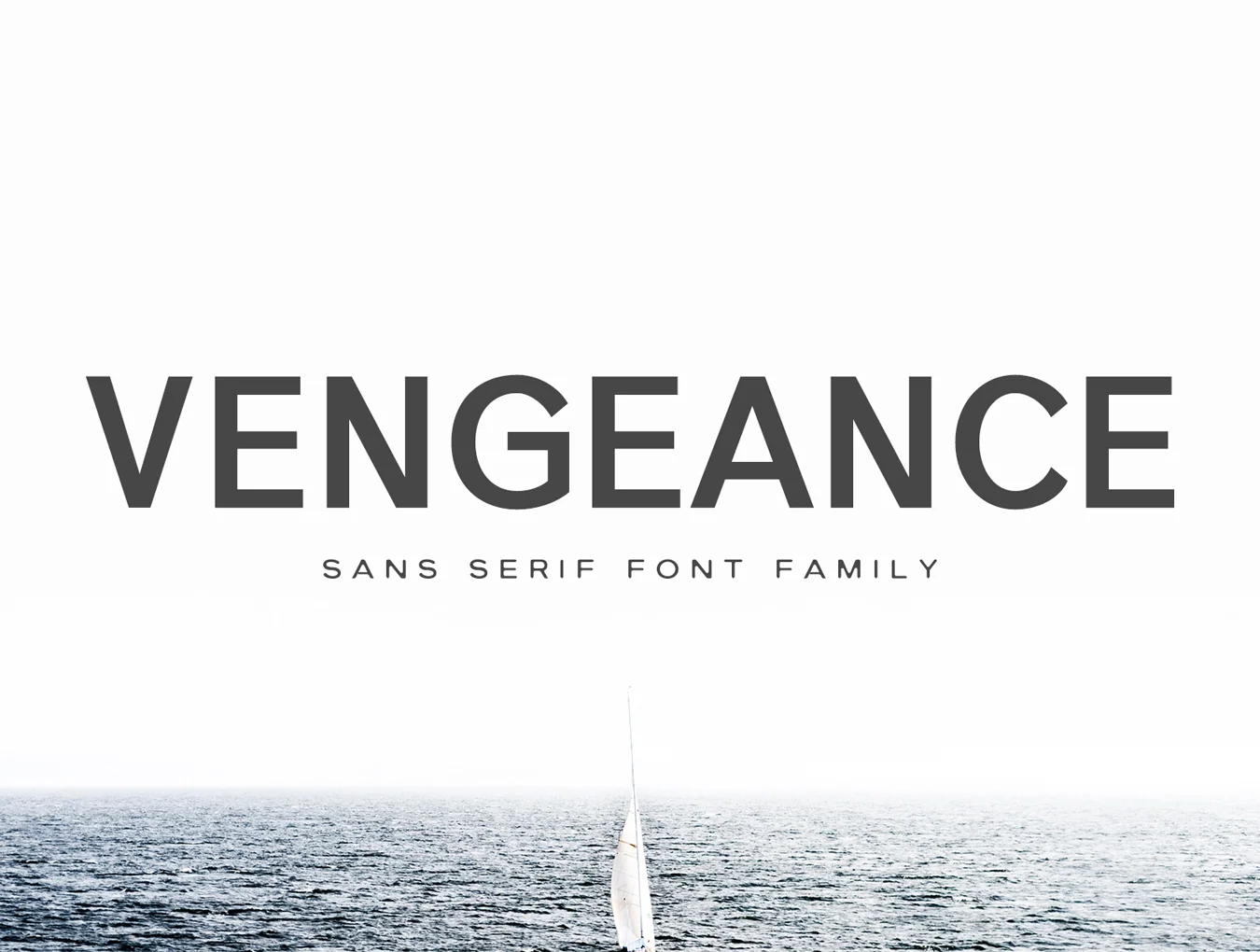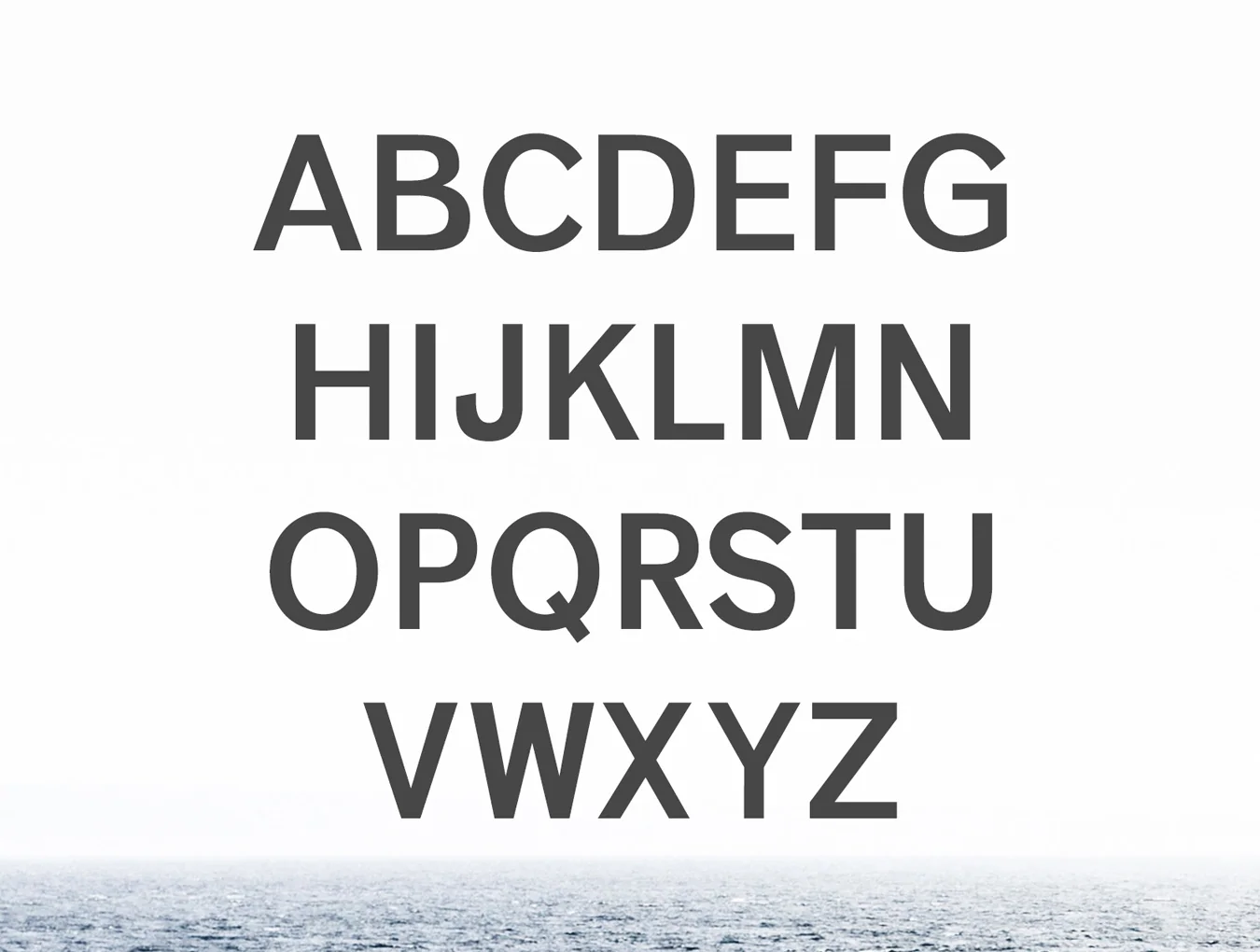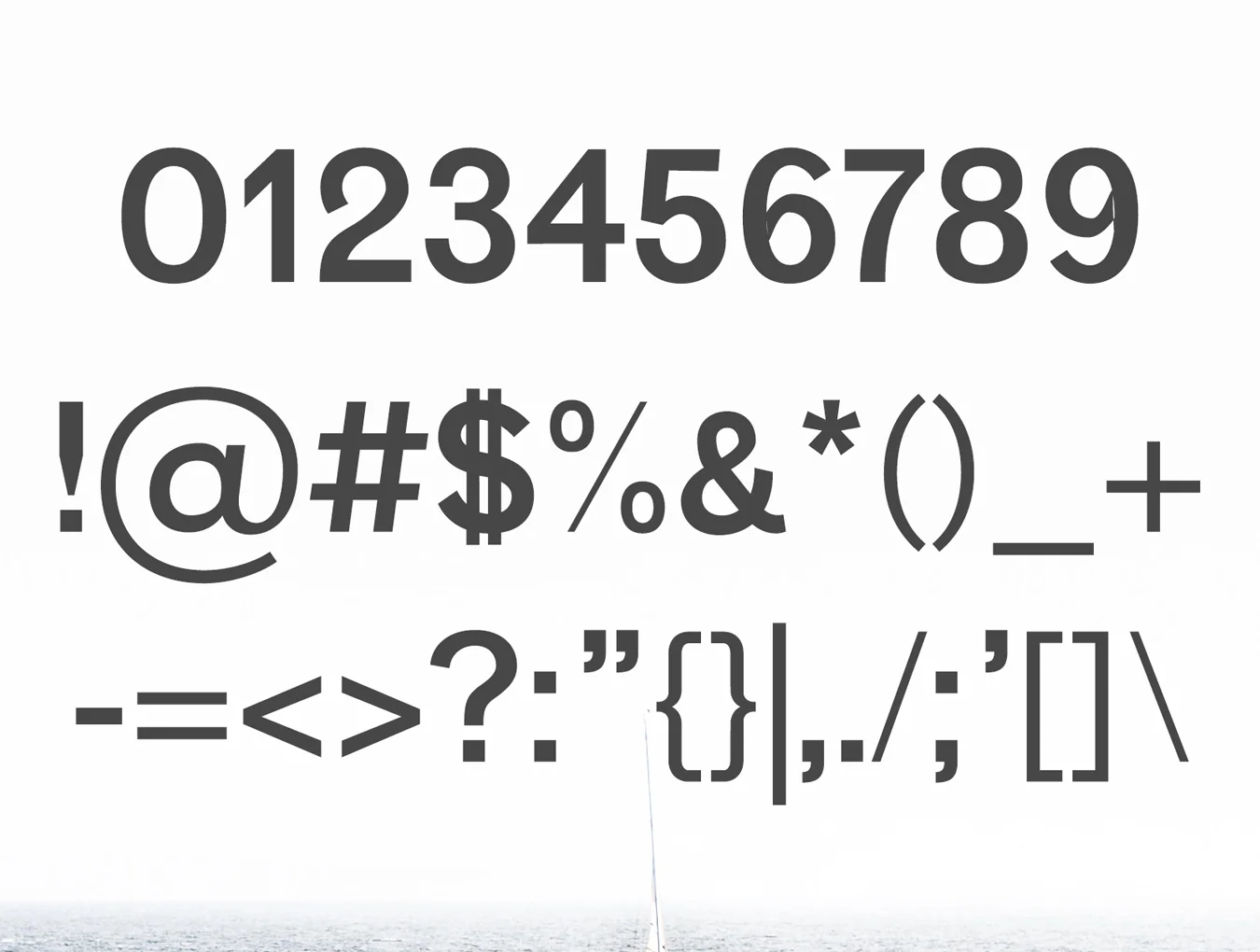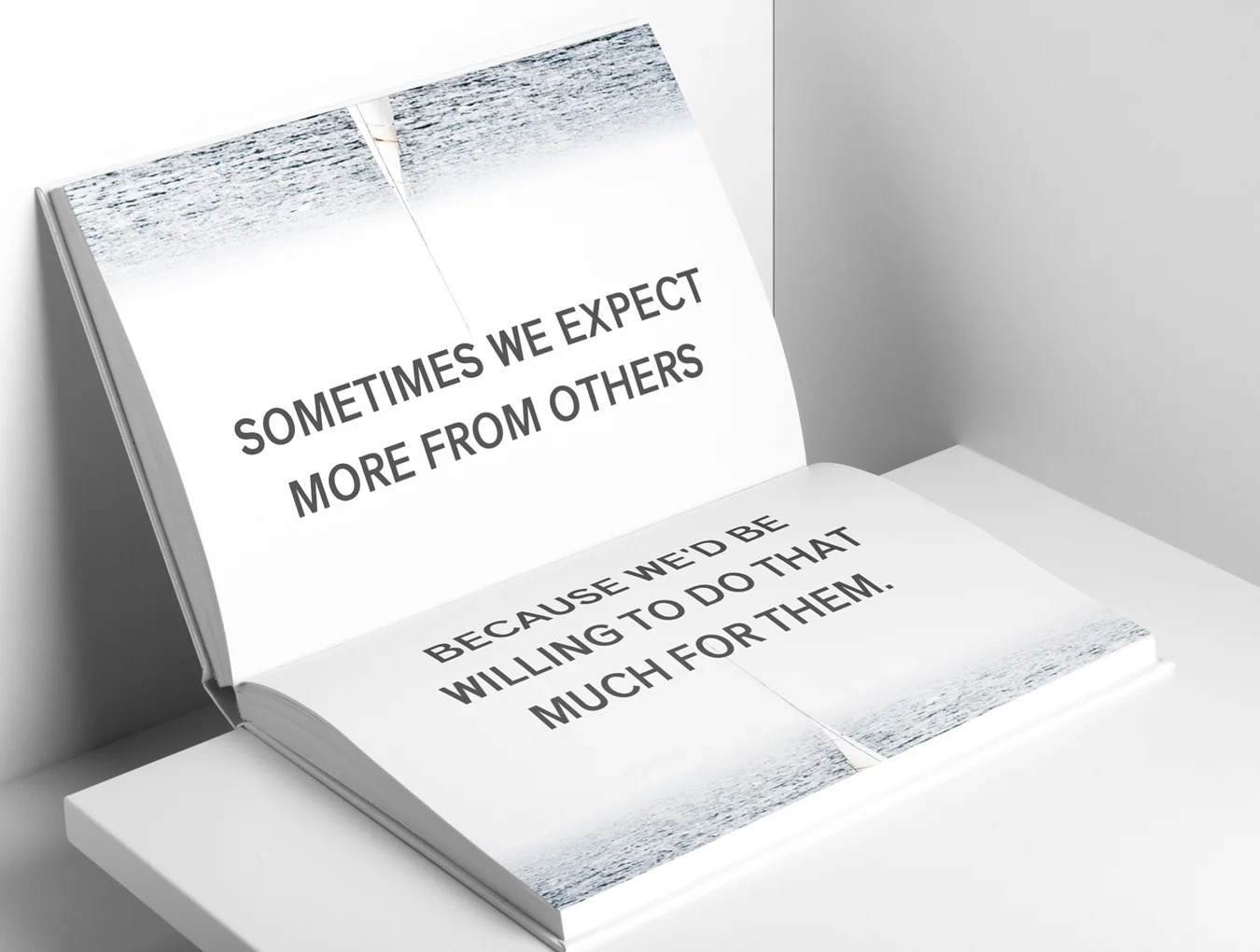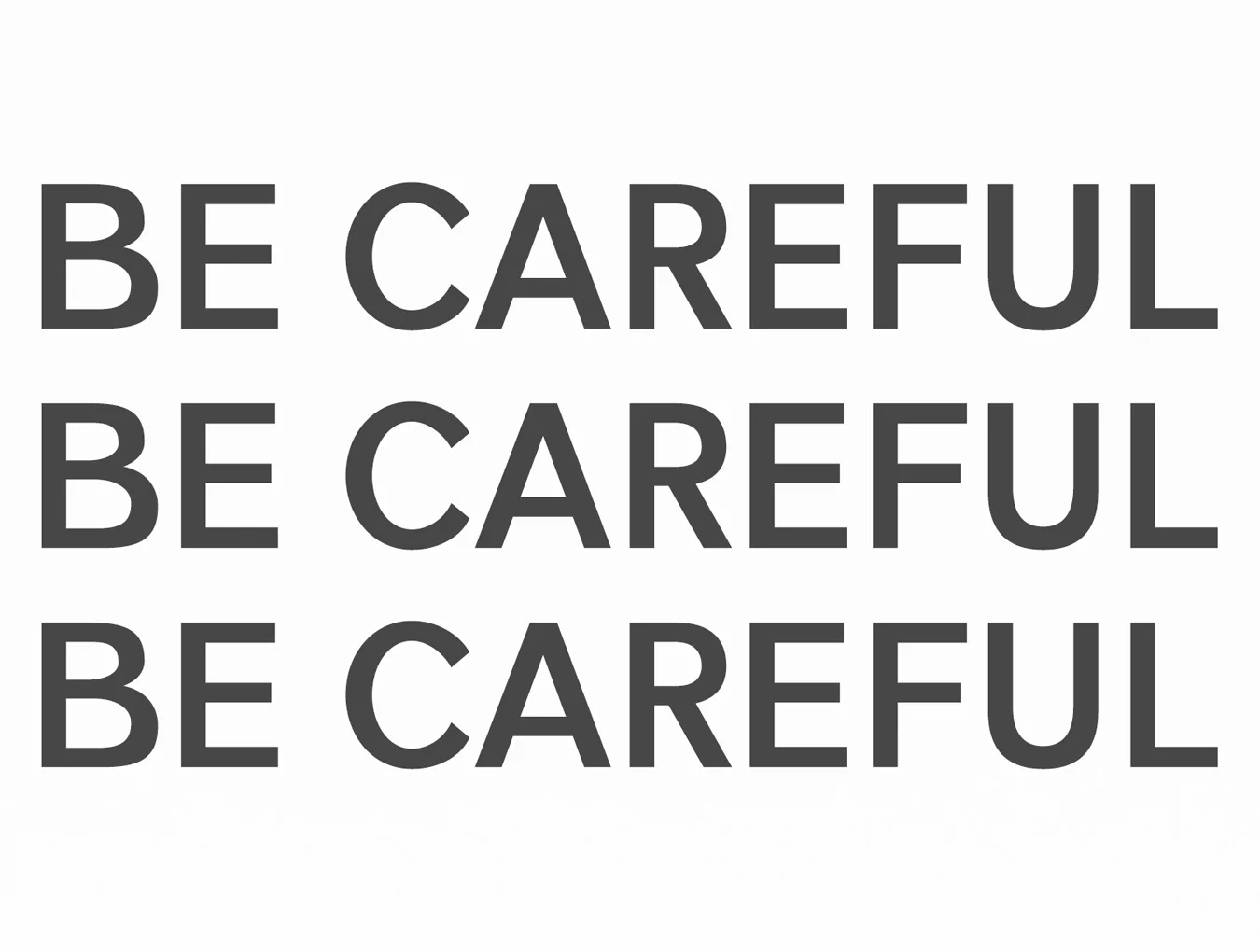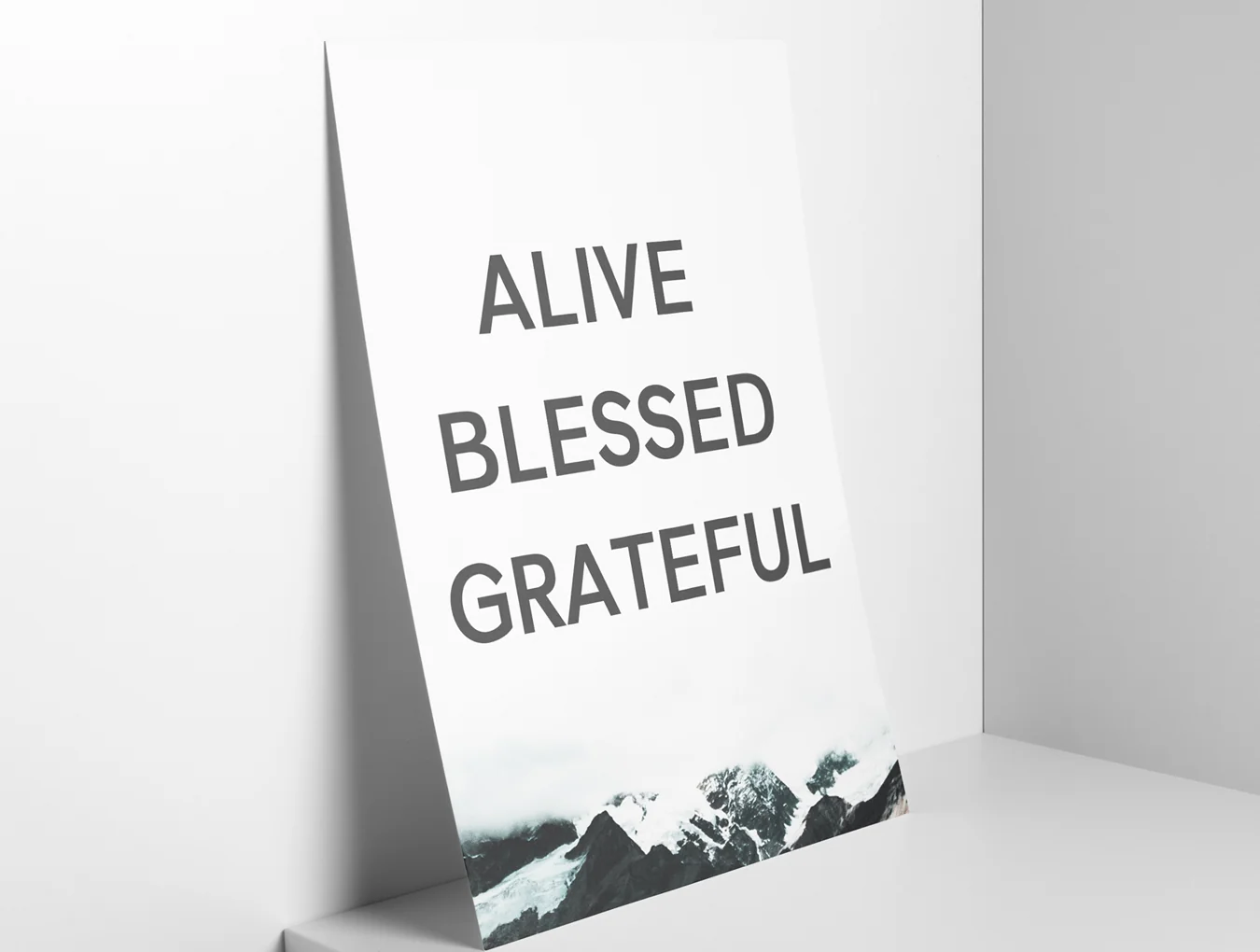
Vengeance Sans Serif
Clean sans serif font style
Set of 313 characters
Capital letters, small letters and numerals
Vengeance Sans Serif Font is an elegant typeface with 7 weights, basic glyphs, and multilingual characters. This distinctive font gives every word a stylish look, making it ideal for headlines, posters, branding, logos, packaging, presentations, quotes, titles, magazines, web layouts, ads, invitations, books, and other creative projects.